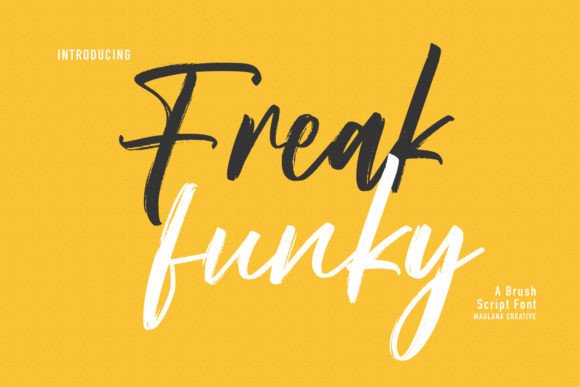
Feast your eyes on Freak Funky Font, a delectable handwritten brush font that will tantalize your creative taste buds. Picture a food truck adorned with this font, its whimsical curves and playful strokes exuding an irresistible charm that beckons passersby to indulge in its culinary delights.
Immerse yourself in the world of Freak Funky, where your imagination runs wild as you craft captivating designs that dance off the page. This font is not merely a collection of letters; it's an artistic symphony, a culinary masterpiece that will elevate your projects to new heights of scrumptiousness.
Visualize your social media posts adorned with Freak Funky's appetizing flair, your website radiating with its mouthwatering appeal, and your printed materials transformed into delectable treats that leave a lasting impression. Let Freak Funky be your secret ingredient, the sprinkle of magic that adds flavor to your creative endeavors.
With Freak Funky at your disposal, you'll unlock a world of culinary typography, where each letter is a delectable morsel, each word a satisfying bite. Embrace the sweet allure of this font and let it transform your designs into a feast for the eyes.
Indulge in the delectable world of Freak Funky Font, where creativity is served with a side of whimsy and every project is a culinary masterpiece. Dive in and let your taste buds dance with delight!